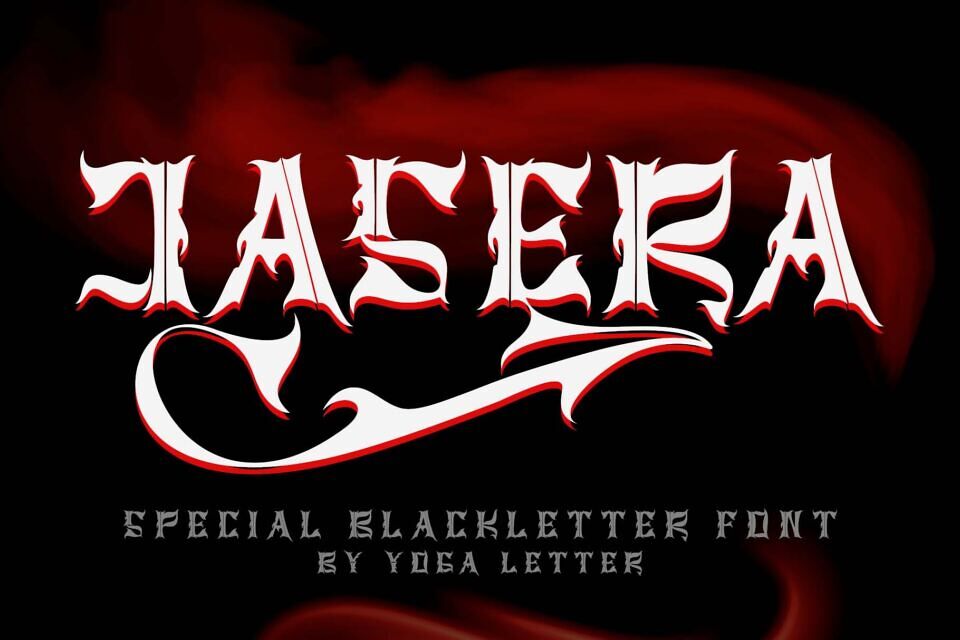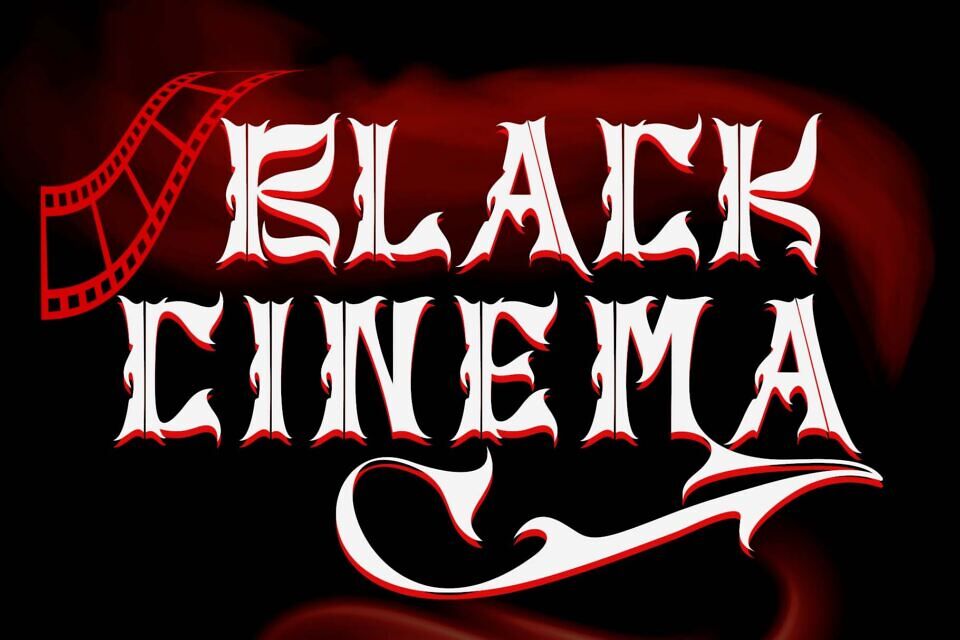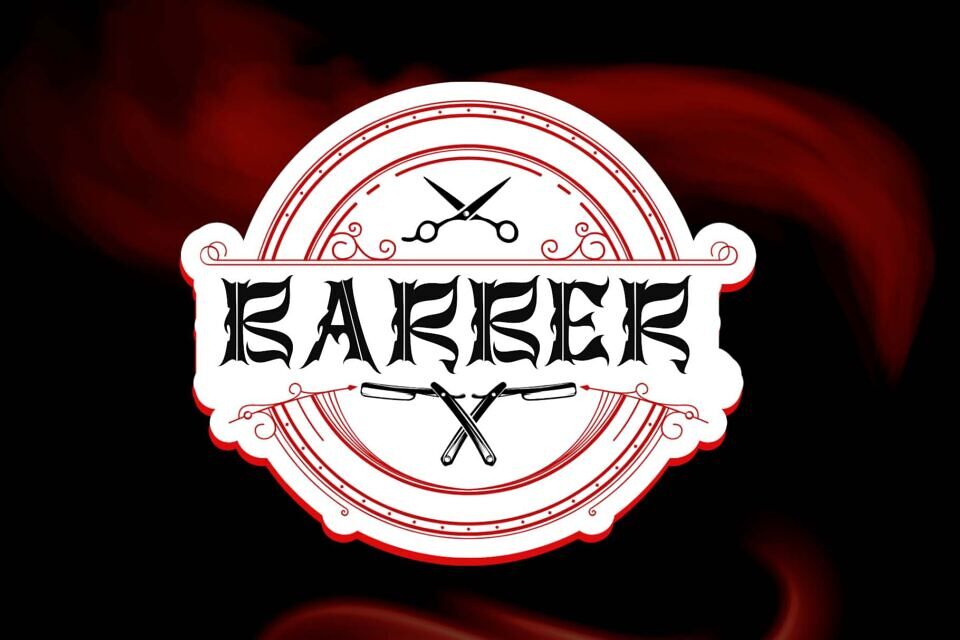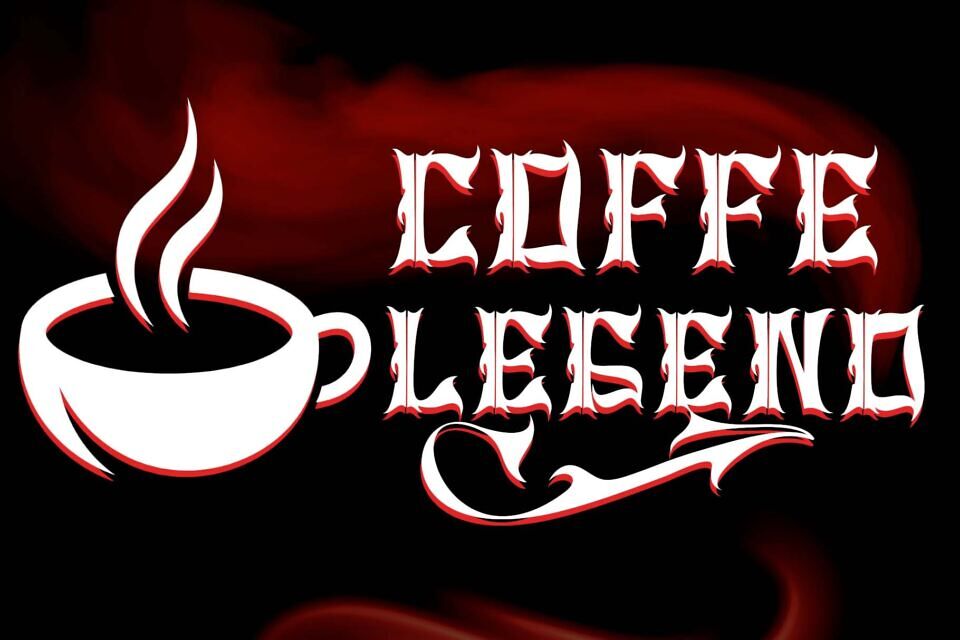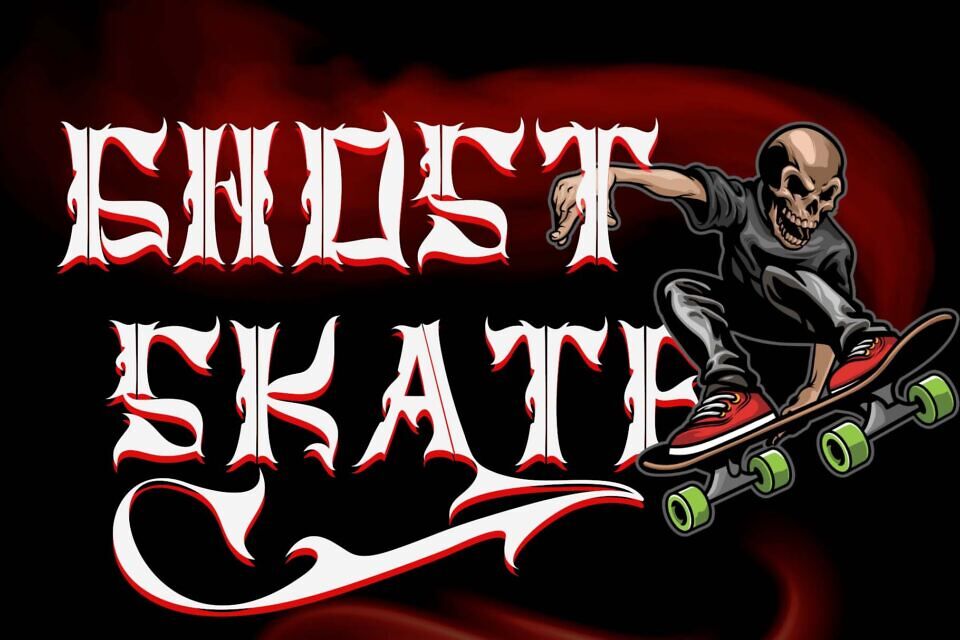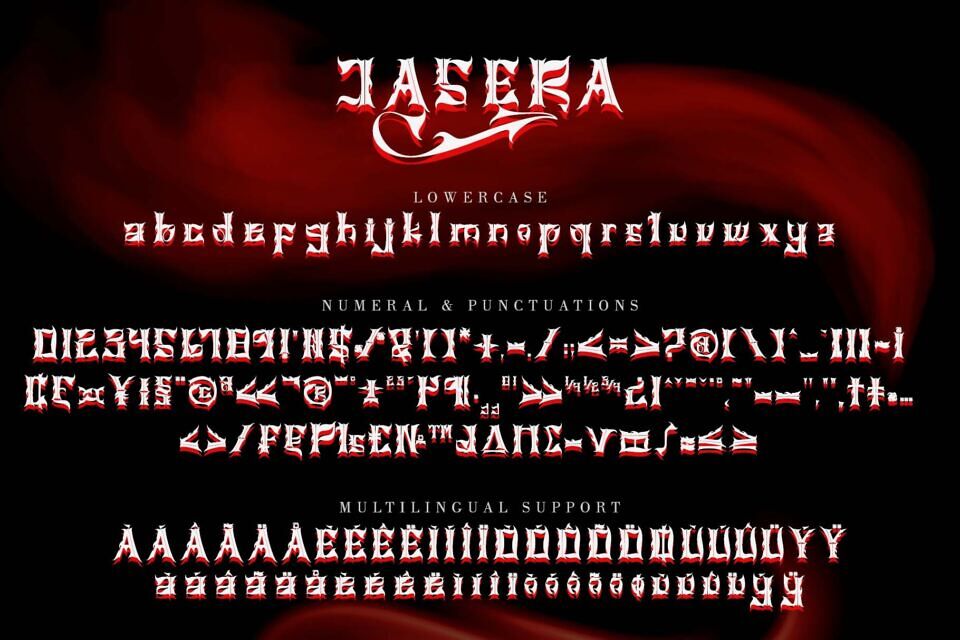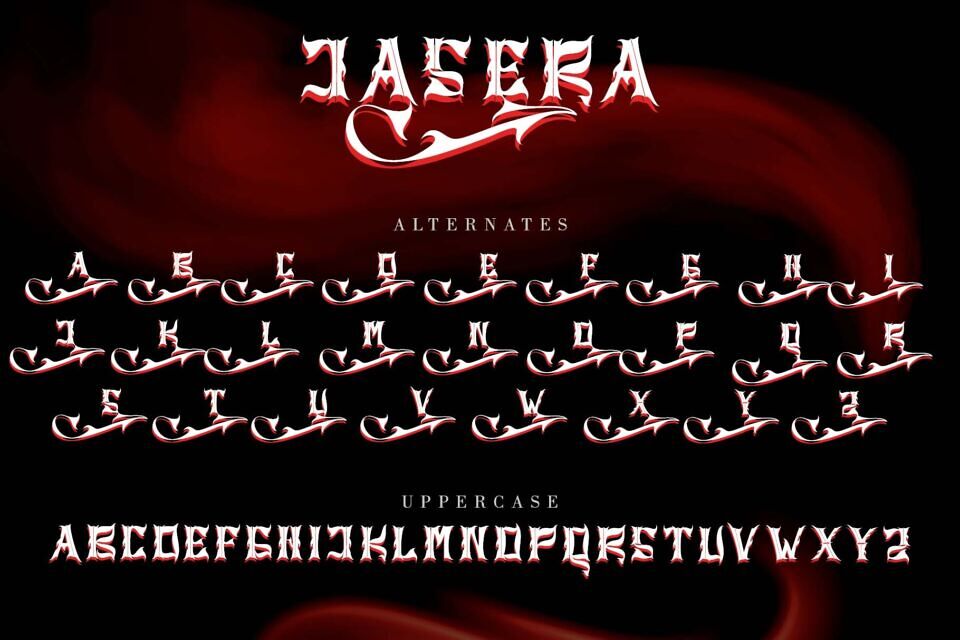
Jasera Font
“Jasera” is a professional and elegant blackletter font. This font is made by professional hands. Equipped with uppercase, lowercase, numerals, alternates, multilingual support and punctuations.
Very suitable for tattoos, stickers, movie titles, logos, cinema, horror, barber, cafe, business branding and others.